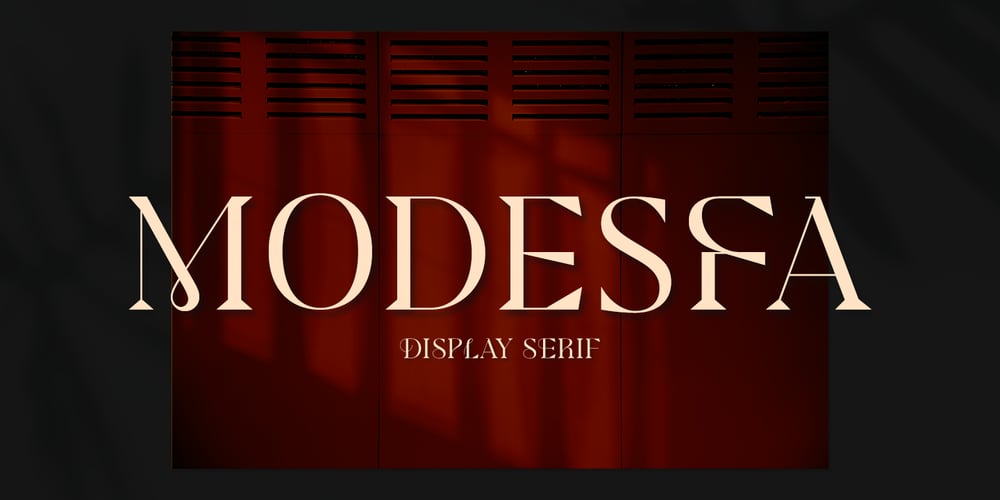
Modesfa Font Family was designed by Abdul Malik Wisnu and published by Almarkha Type. Modesfa contains 1 styles and family package options. Introducing Modesfa – Modern Display Serif inspired by the famous minimalist logo perfect for the purposes of designing templates, brochures, videos, advertising branding, logos and more.